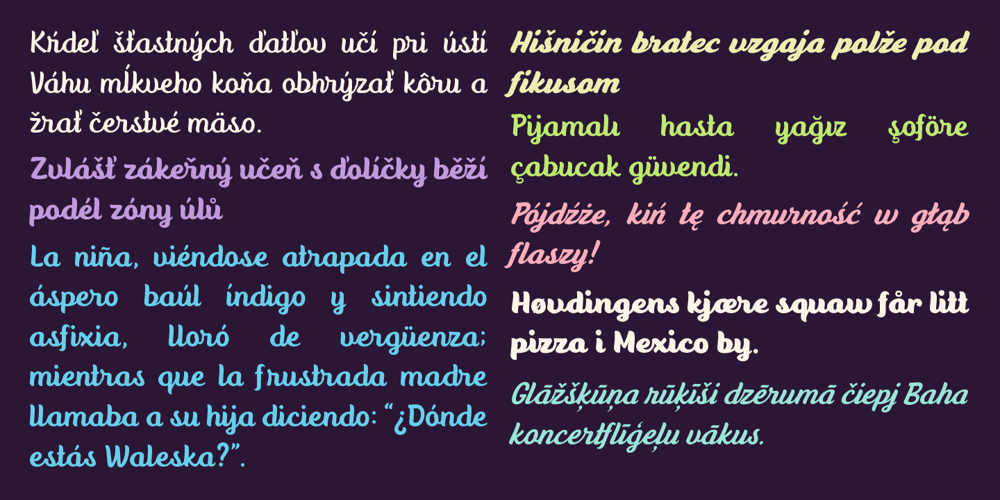
Anyelir Script
Anyelir Script font
Anyelir Script Font Family was designed by Fredy Rakhman Sujono and published by Fredysujono. Anyelir Script contains 9 styles and family package options. Anyelir script is a tasty and friendly brush font packed with OpenType ligatures, swashes and lots of alternate characters. The family has an character set supporting Western European, Central European and South Eastern European.